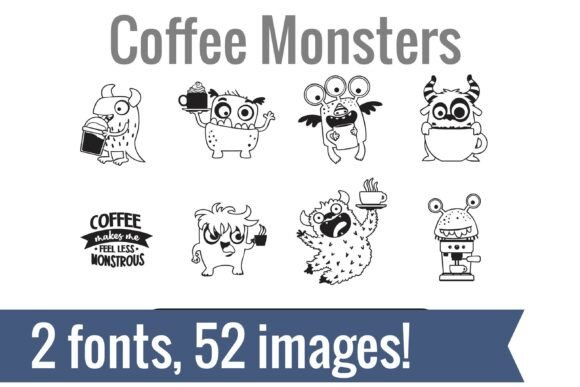
Coffee Monsters Dingbats Font: Add a Buzz of Fun to Your Designs
Are you looking for a unique and quirky way to add some personality to your designs? Look no further than the Coffee Monsters Dingbats Font! This fun and playful font duo is perfect for coffee lovers and designers alike, featuring 52 unique illustrations of coffee-obsessed monsters, caffeine-themed jokes, and hilarious cup creatures.
What is Coffee Monsters Dingbats Font?
Coffee Monsters Dingbats Font is a set of two dingbats fonts, each featuring uppercase A-Z characters that are mapped to different monster or cup designs. The fonts are designed to work beautifully together, providing a complete set of high-quality graphics that can be used to add a touch of whimsy to your designs.
The font includes a range of designs, from sleepy-eyed beasts to over-caffeinated chaos, ensuring that you’ll find the perfect image to match your brand’s personality. Whether you’re creating mugs, tumblers, t-shirts, planner stickers, or any other type of design, Coffee Monsters Dingbats Font is the perfect pick-me-up for your creative toolbox.
Key Features of Coffee Monsters Dingbats Font
• 52 unique illustrations: Each design is carefully crafted to provide a unique and humorous take on coffee-obsessed monsters and cup creatures.
• Two fonts with uppercase A-Z characters: Each letter is mapped to a different monster or cup design, providing a wide range of options for your designs.
Benefits of Using Coffee Monsters Dingbats Font
Coffee Monsters Dingbats Font offers a range of benefits for designers, including:
• Unique and quirky designs: The font provides a unique and quirky way to add personality to your designs.
• Increased creativity: The font’s playful designs can help stimulate your creativity and inspire new ideas.
• Time-saving: The font provides a complete set of high-quality graphics, saving you time and effort in your design process.
Who is Coffee Monsters Dingbats Font for?
Coffee Monsters Dingbats Font is perfect for:
• Coffee lovers: Anyone who loves coffee and wants to add a touch of personality to their designs.
• Designers: Graphic designers, digital artists, and crafters looking for a unique and quirky way to add personality to their designs.
• Small business owners: Small business owners looking to add a touch of whimsy to their branding and marketing materials.
• Crafter: Crafters and makers looking to add a personal touch to their handmade products.
Coffee Monsters Dingbats Font is a fun and playful font duo that is perfect for adding a touch of personality to your designs. With its unique and quirky designs, compatibility with popular design software, and cost-effective pricing, it’s an ideal choice for designers, coffee lovers, and small business owners alike. So why not add a buzz of fun to your designs with Coffee Monsters Dingbats Font today?